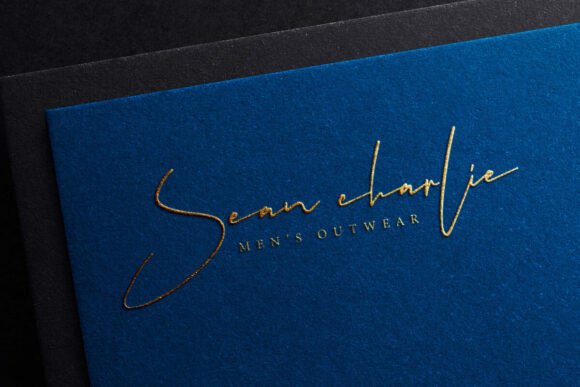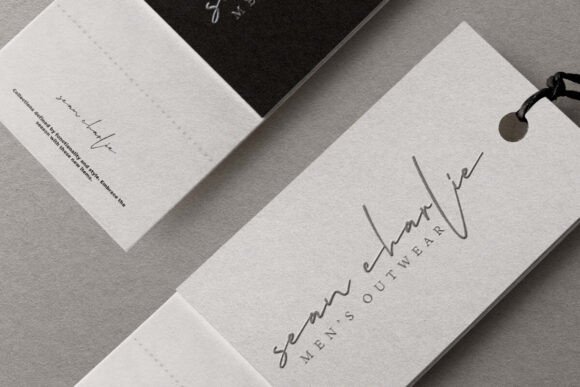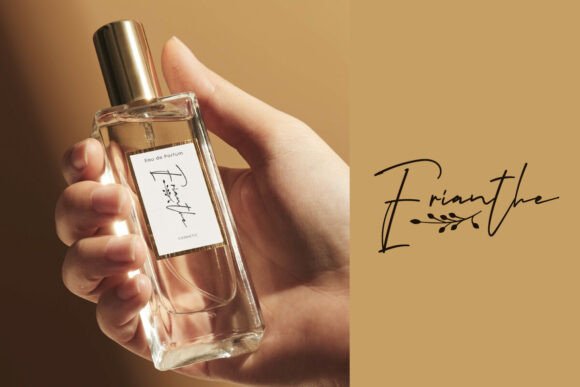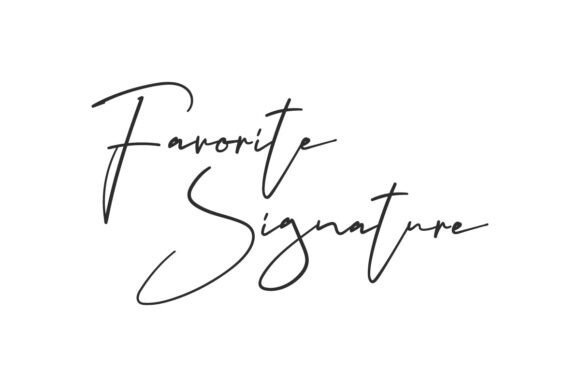
Introduction to Favorite Signature Font
Favorite Signature Font is a beautiful, handwritten typeface with a signature style.
Its thin monoline brush strokes give it a clean and elegant look, perfect for enhancing projects like brand logos, brochures, business cards, catalogs, certificates, covers, embossed designs, greeting cards, invitations, labels, mockups, price tags, screen prints, signage, signatures, stationery, stickers, titles, watermarks, websites, and more .